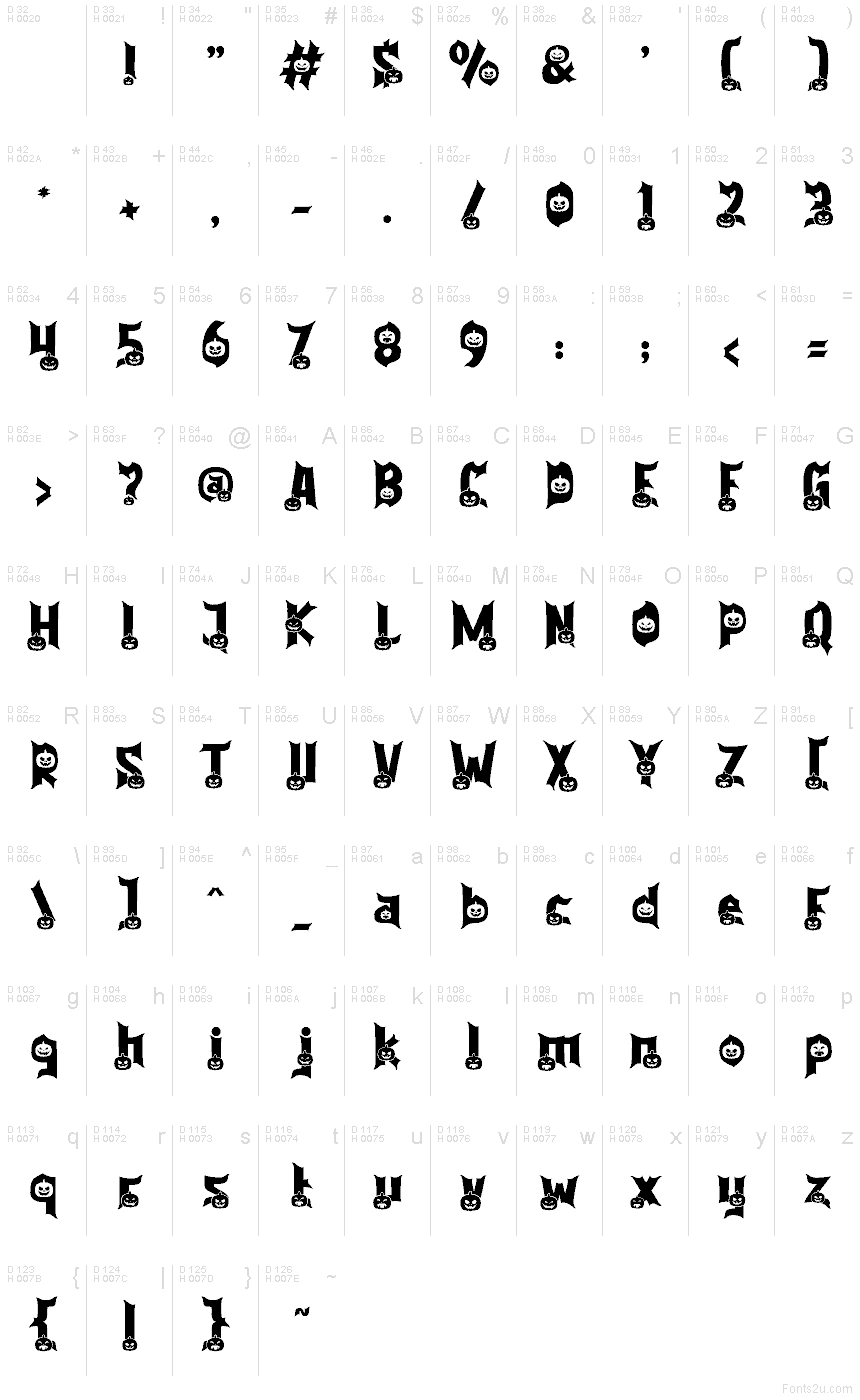
Purgatorie Pumpkin
Purgatorie Pumpkin font by PutraCetol Studio is a free Halloween display font. It splices gothic, blackletter bones with cheeky jack‑o’-lantern faces nestled in the letters, giving each word a grinning, candlelit vibe. Thick, inky strokes and daggered curves deliver playful menace without losing clarity, so headlines pop like a flashlight flicker on a dark porch.
Using Purgatorie Pumpkin, your holiday pieces instantly feel haunted yet fun. It shines on party flyers, haunted house posters, trick‑or‑treat bags, social posts, banners, and stickers. The sturdy forms hold up at large sizes; add a touch of tracking for air. Pair this free font with a clean, modern sans to keep copy readable while the title steals the show.